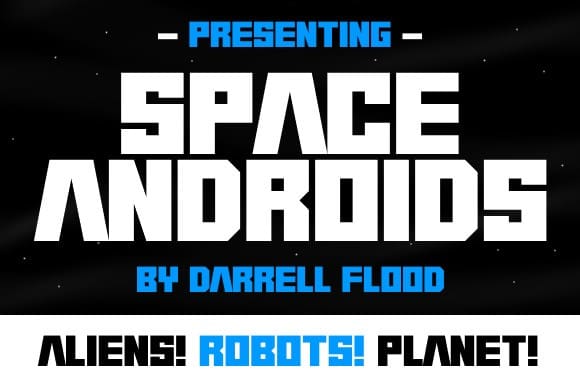
Space Androids Font
Space Androids Font is an angular, robot like font in a slick modern style. Perfect for alien encounters, exploring new planets and general science fiction use!